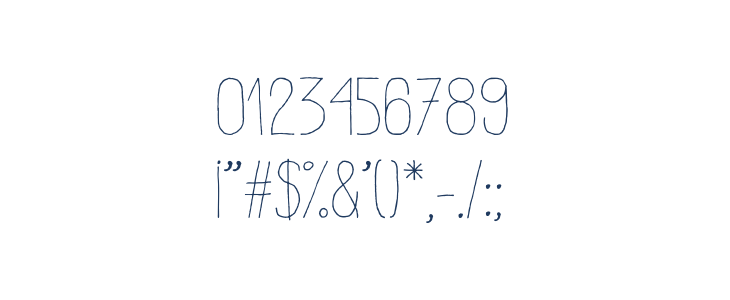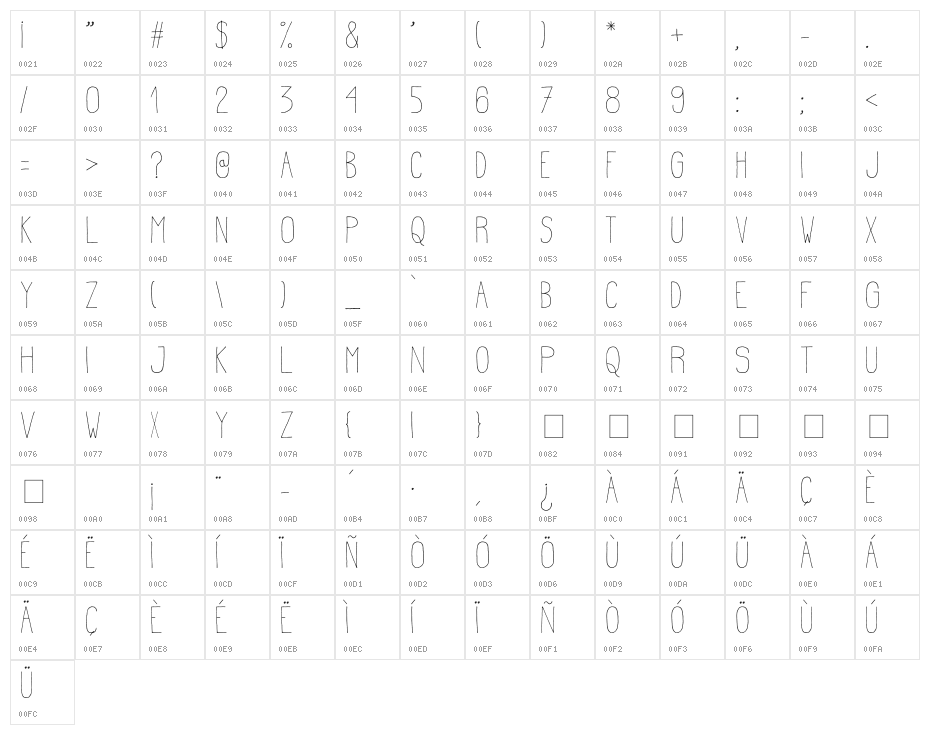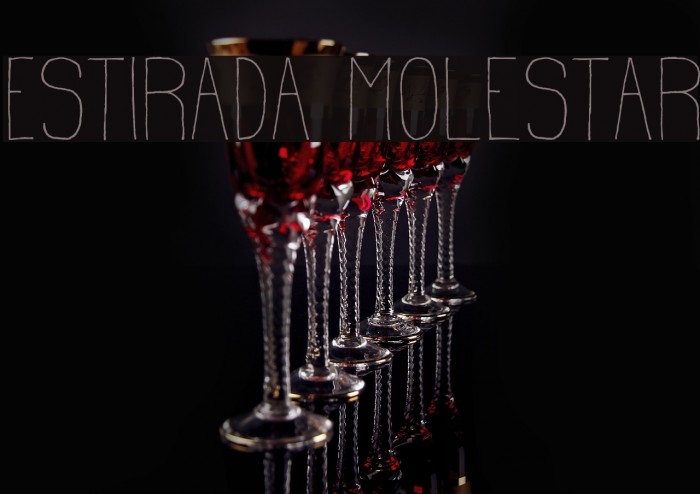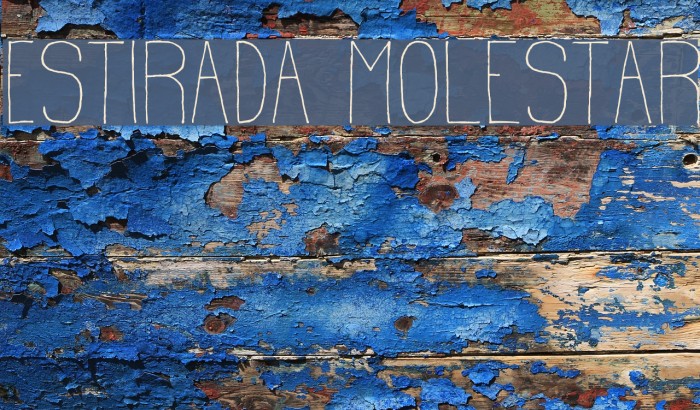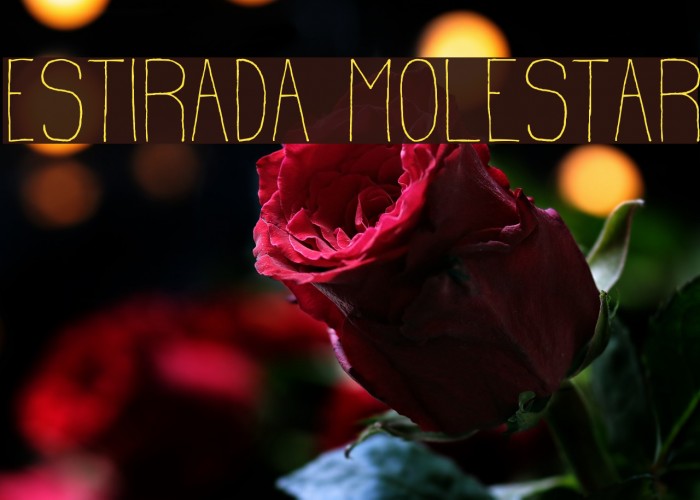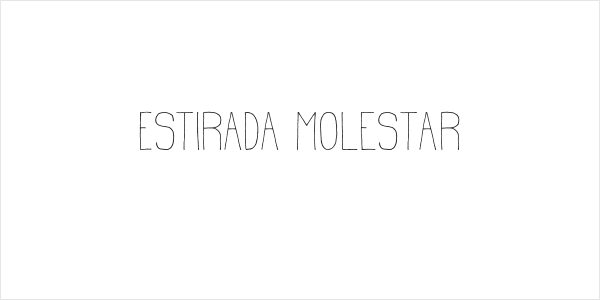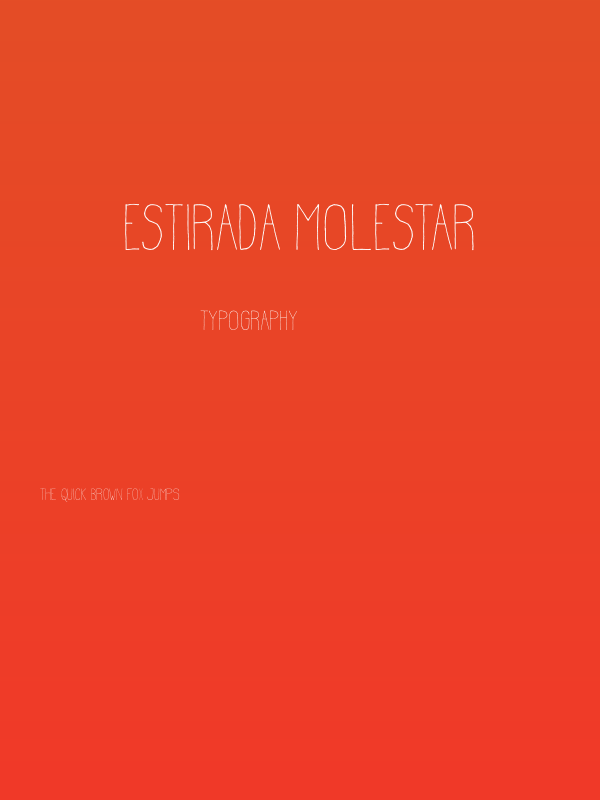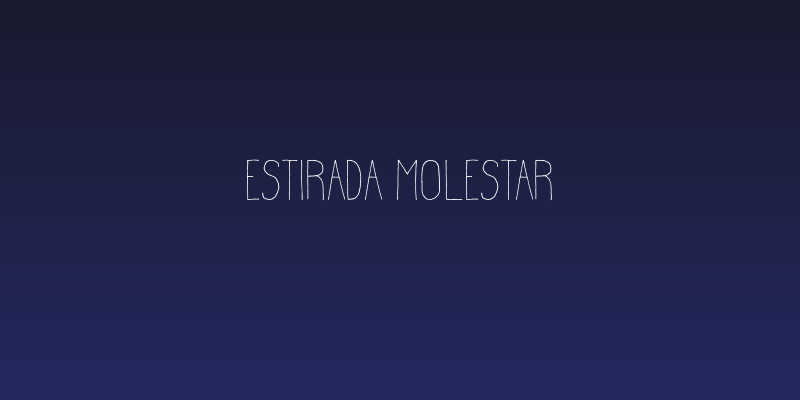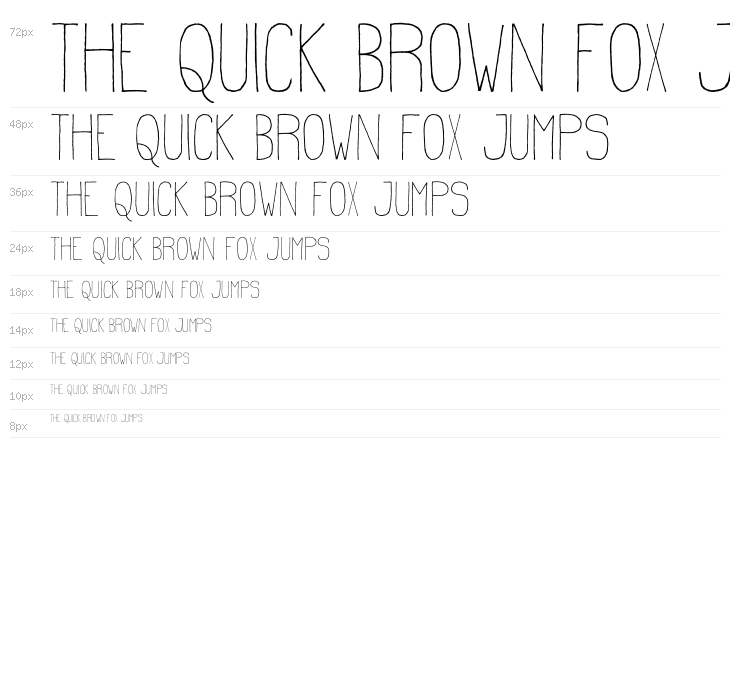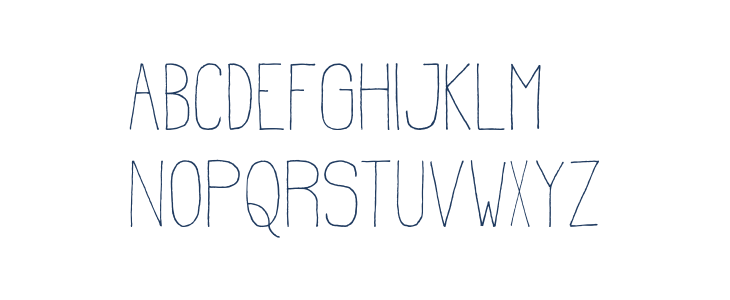
Estirada Molestar Font
Estirada Molestar Description
This font features a unique, elongated design with thin, delicate strokes that give it a hand-drawn appearance. The characters are tall and narrow, creating a sense of elegance and sophistication. Each letter maintains a consistent height, contributing to a uniform look across the typeface. The spacing between characters is slightly wide, allowing for readability despite the slender forms. The numerals and special characters follow the same stylistic approach, ensuring cohesion throughout. This font's distinctive style makes it suitable for creative and artistic projects where a touch of individuality is desired.
| Proposed Projects | Ideal for artistic projects, invitations, posters, and branding that require a unique and sophisticated touch. |